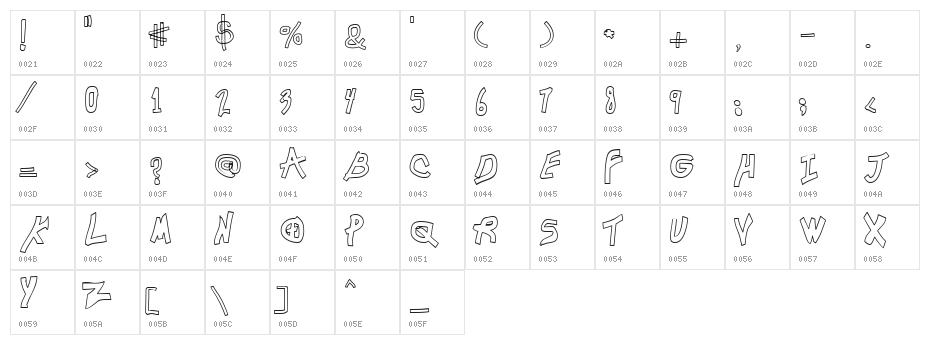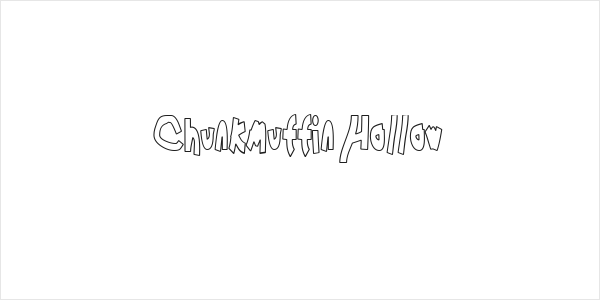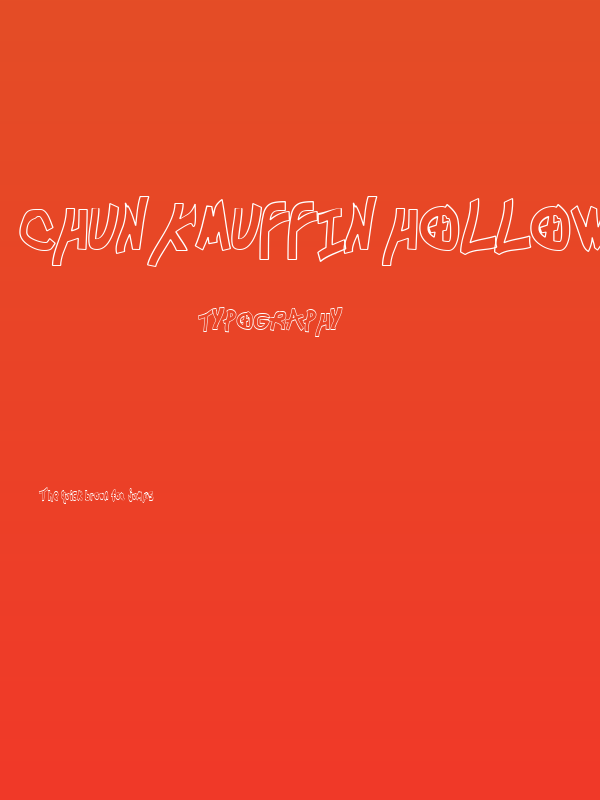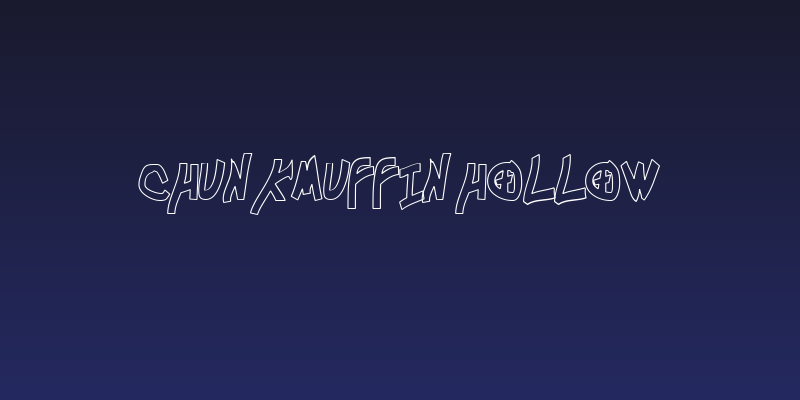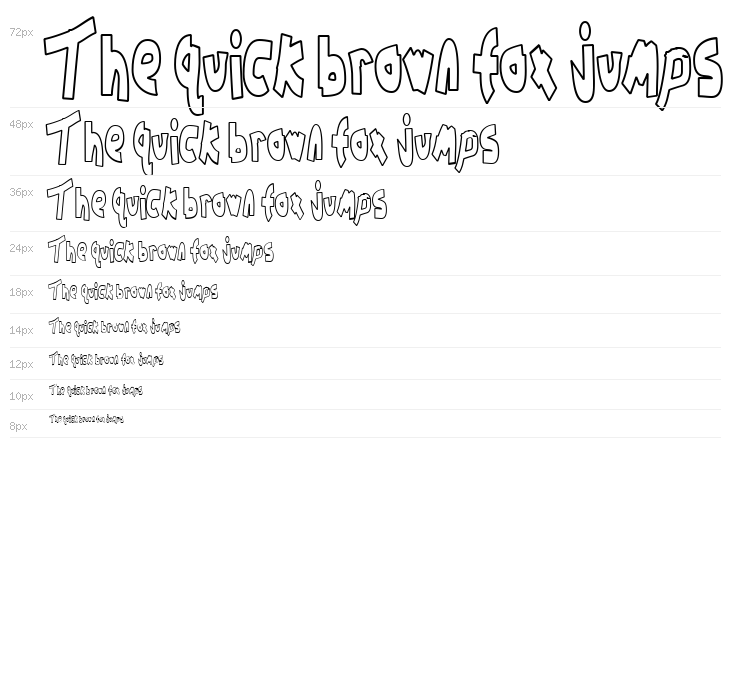
Chunkmuffin Hollow Font
Chunkmuffin Hollow Description
This font features a playful and bold design with hollow, outlined characters that give it a unique and eye-catching appearance. The uppercase and lowercase letters are crafted with a dynamic, irregular style that adds a sense of movement and energy. The numbers and special characters maintain this lively aesthetic, making the font suitable for creative and informal projects. Its distinct, hand-drawn look is perfect for designs that require a fun and engaging visual element.
| Overall Style | Playful, Hand-drawn |
| Proposed Projects | Ideal for children's book covers, comic strips, playful branding, and event posters. |